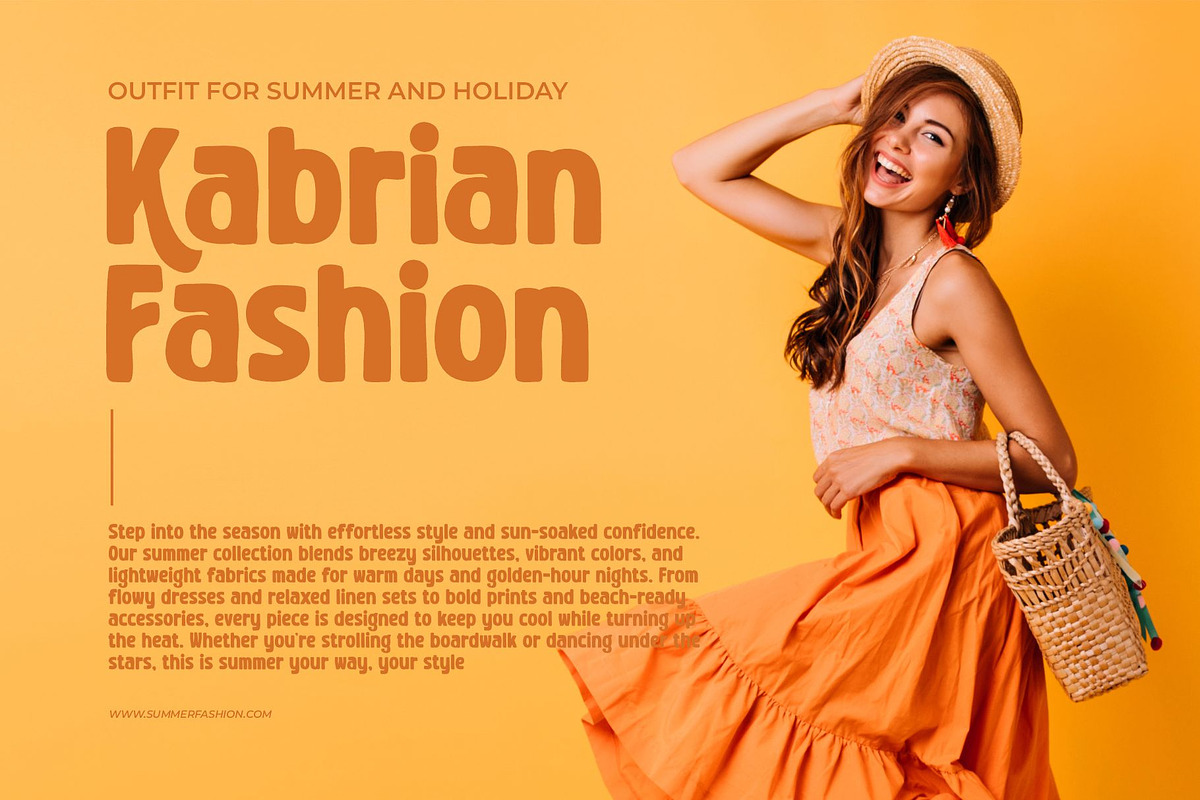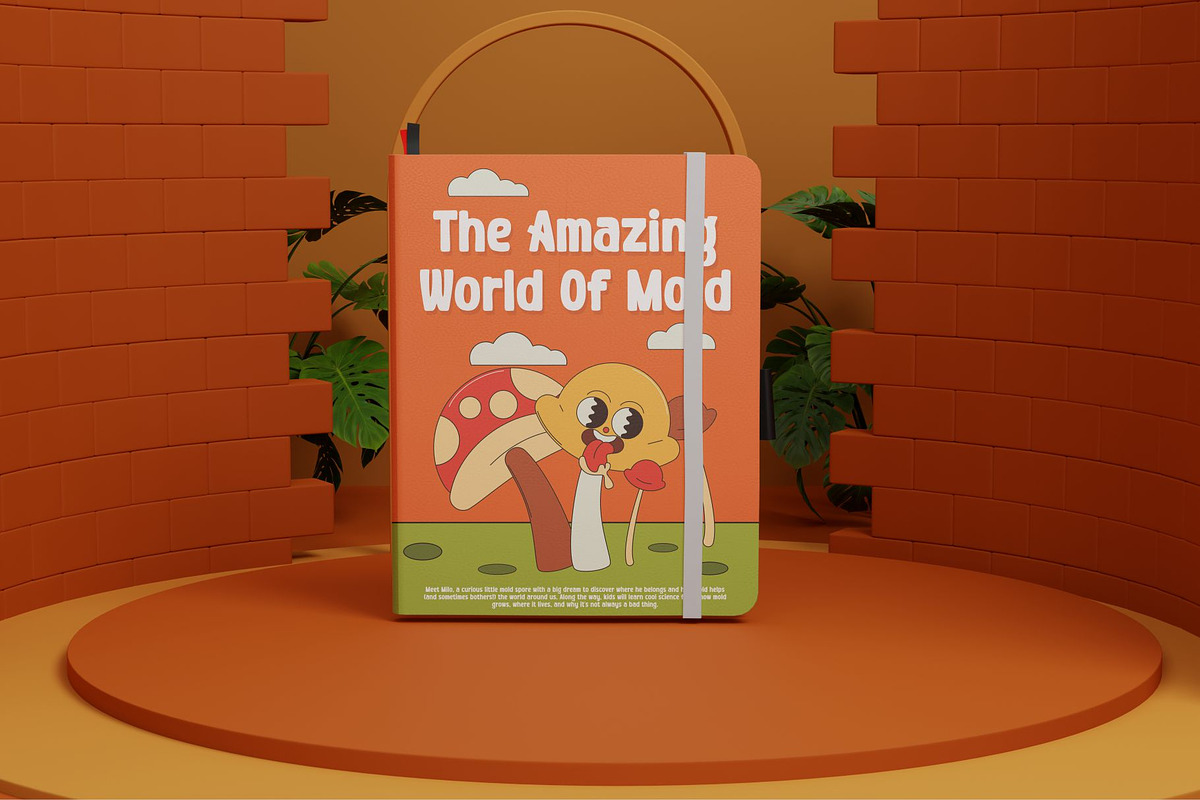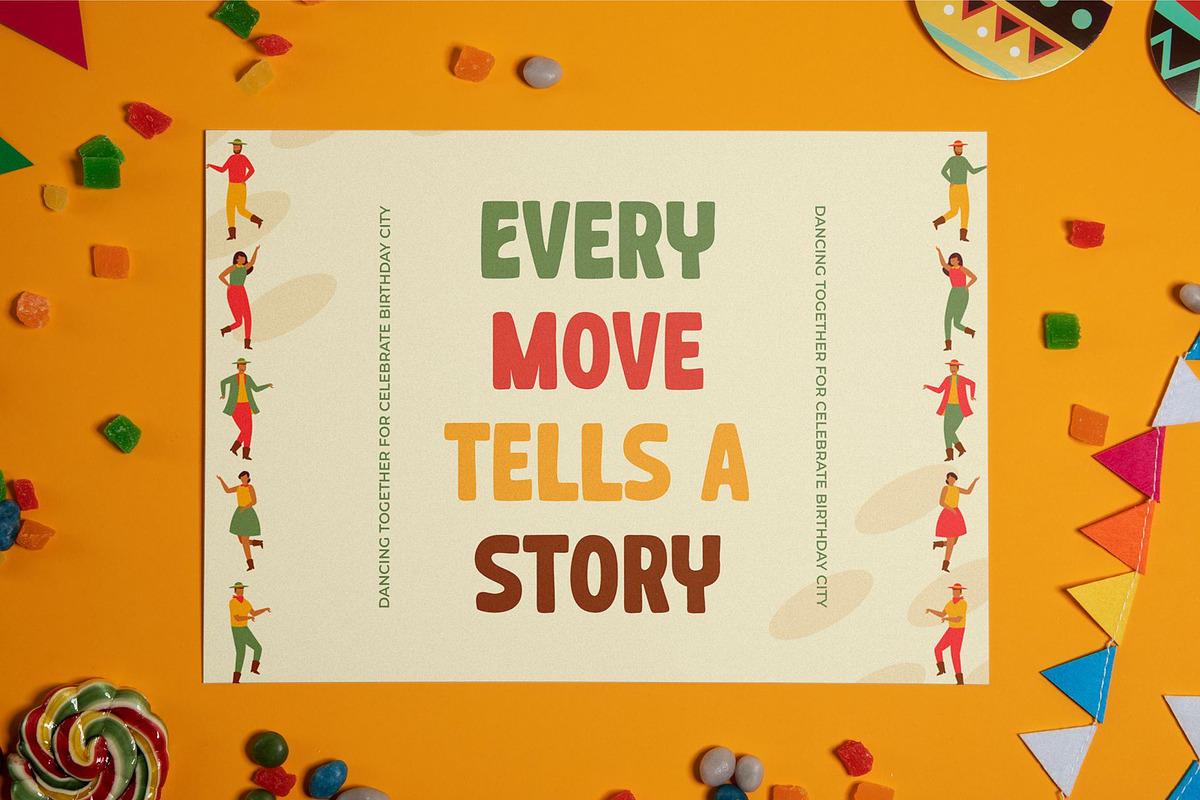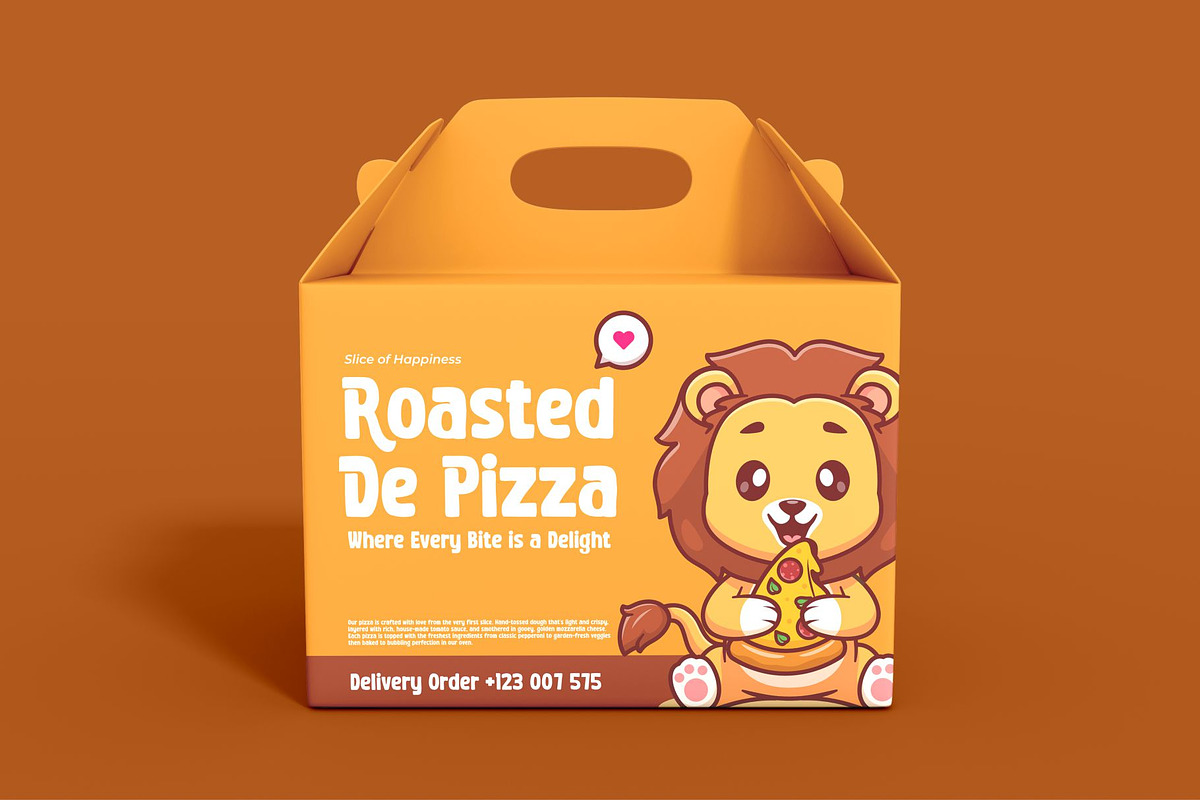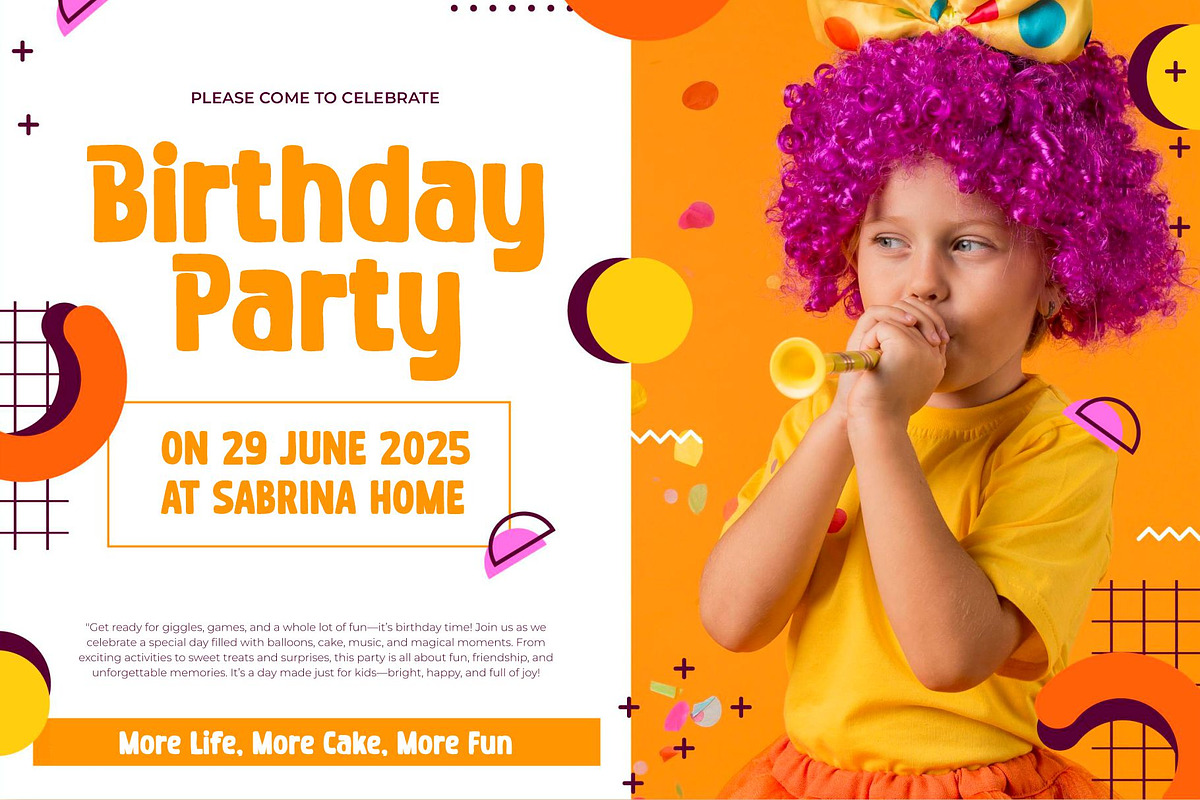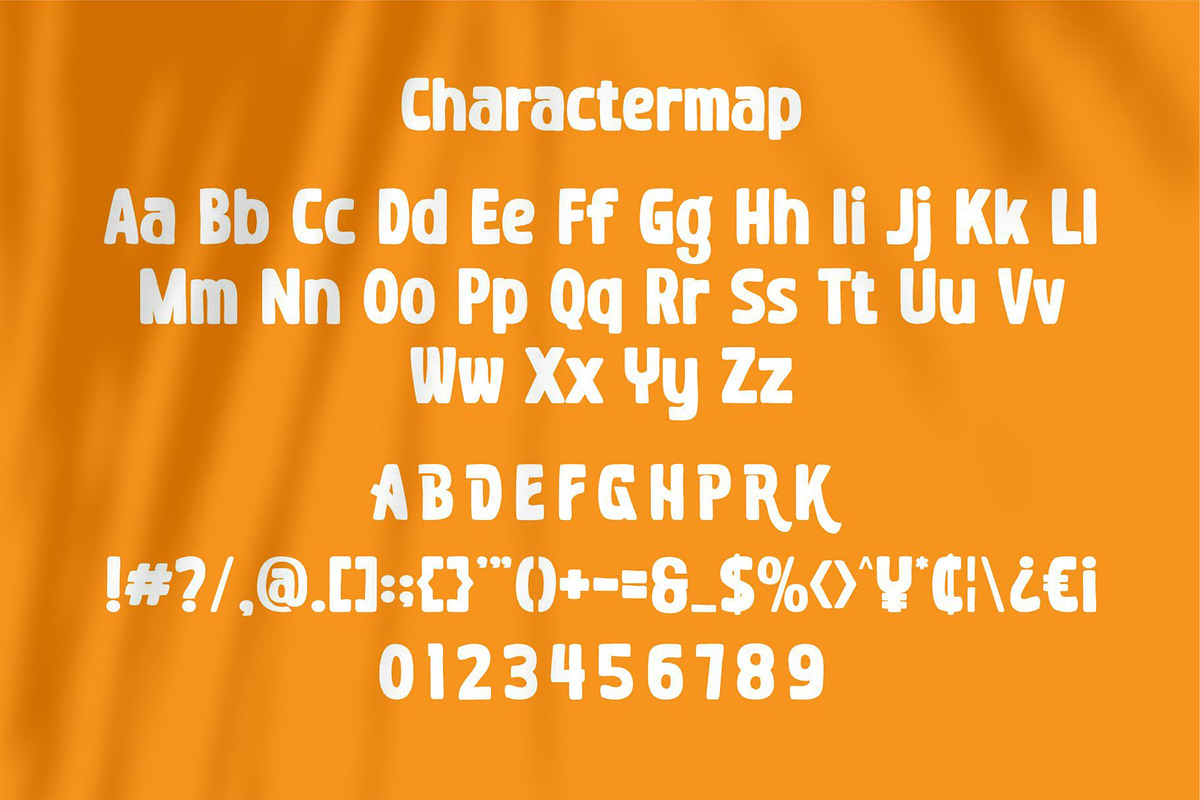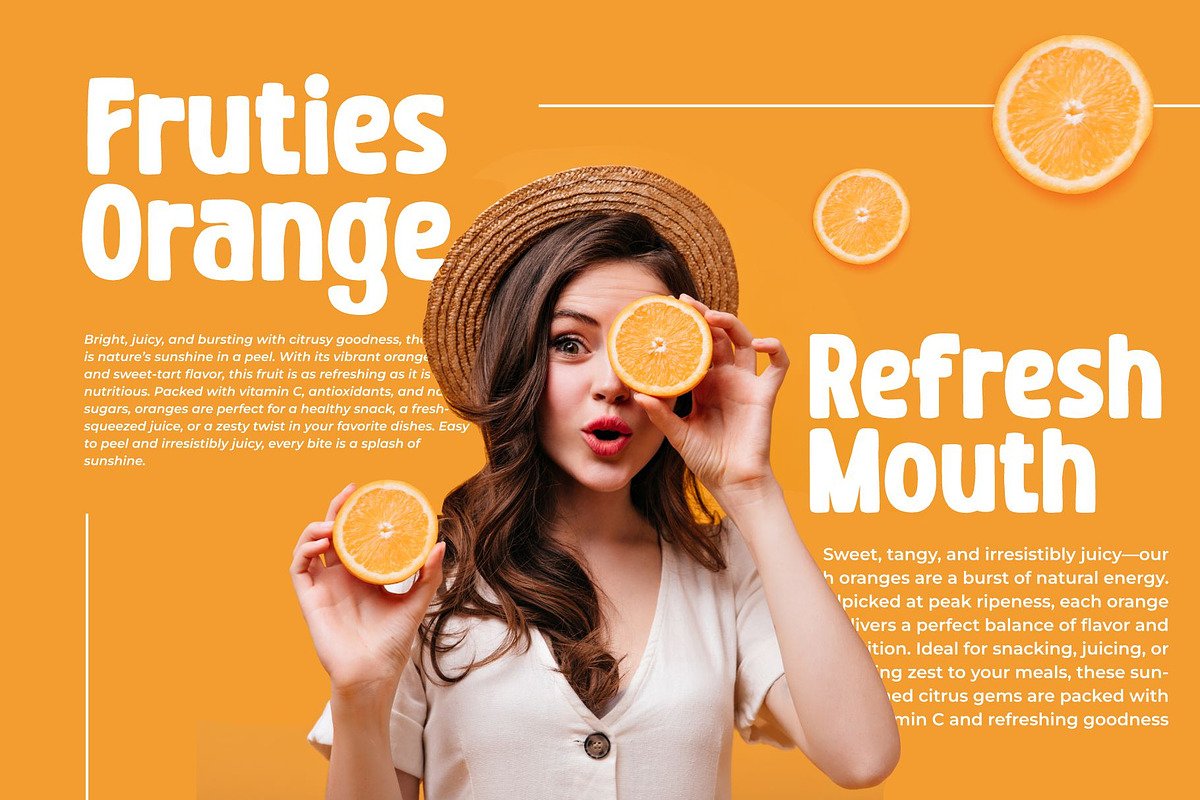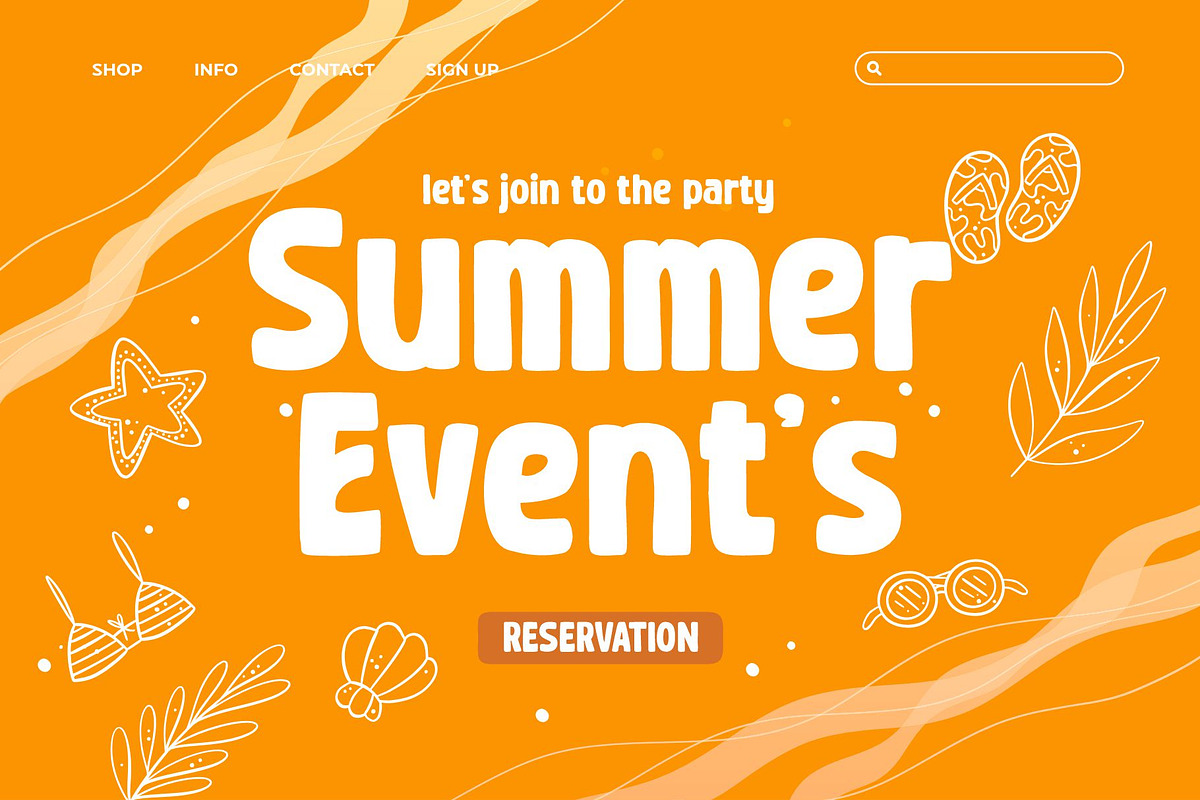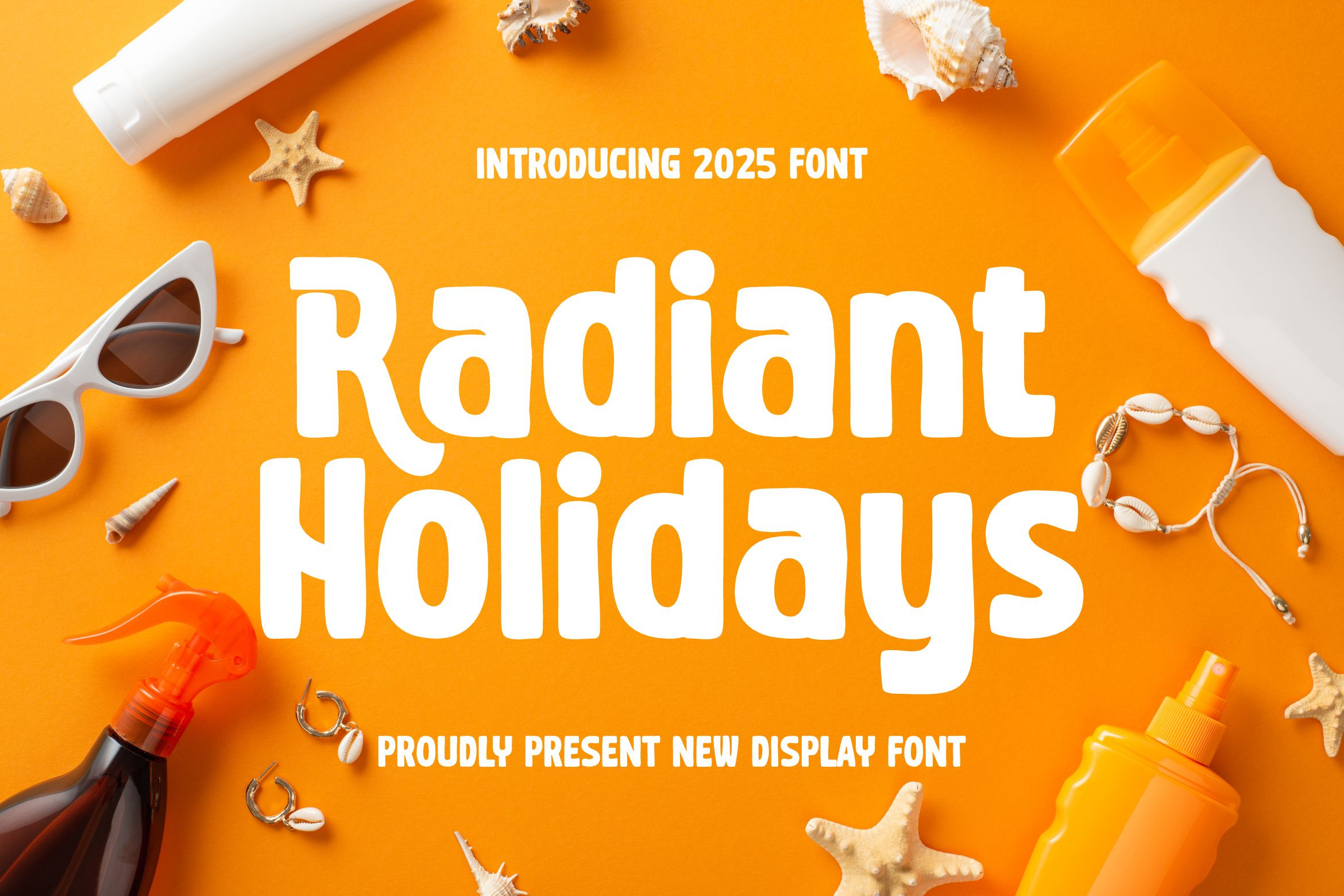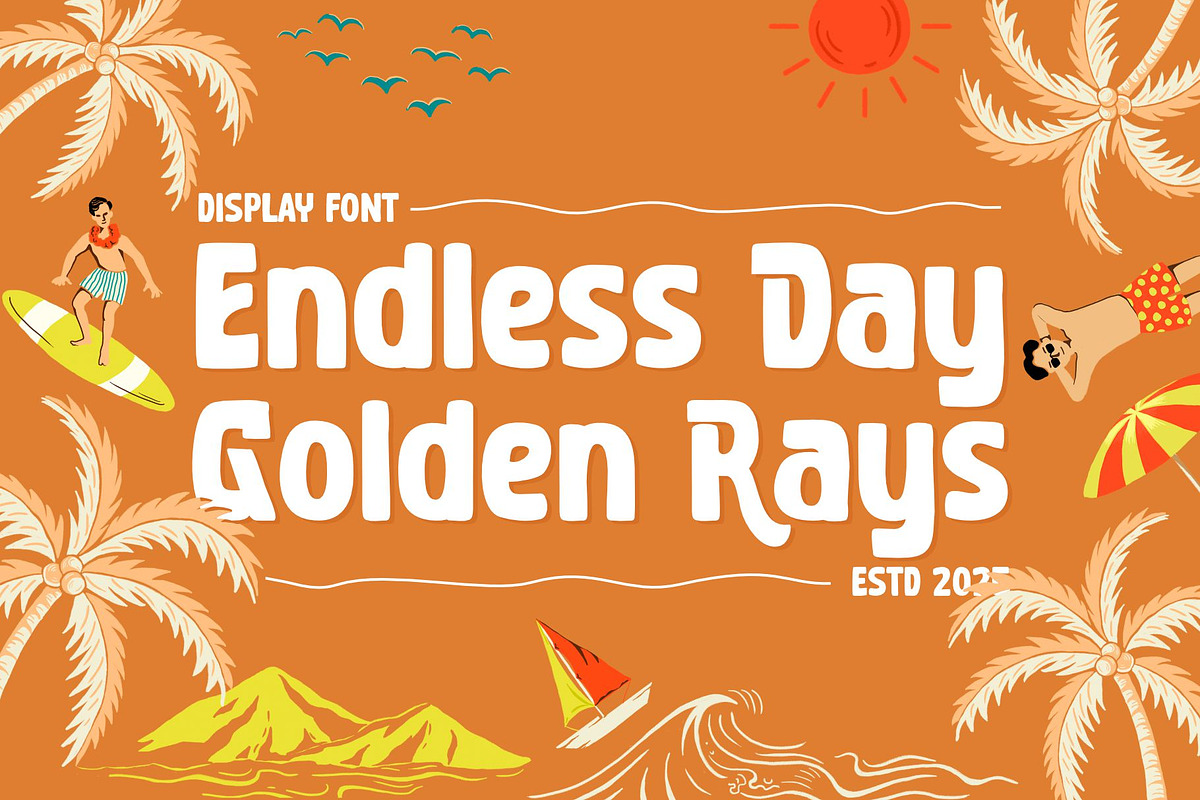
Radiant Holidays || Sans Serif Font
Introducing Radiant Holiday is display summer Font modern, trendy, bouncy and cute display font. It has a unique character with wood theme. It is perfect to be combined with invitation card designs, company logos, movie titles, movie names, business cards, book titles, brand names and various other designs.